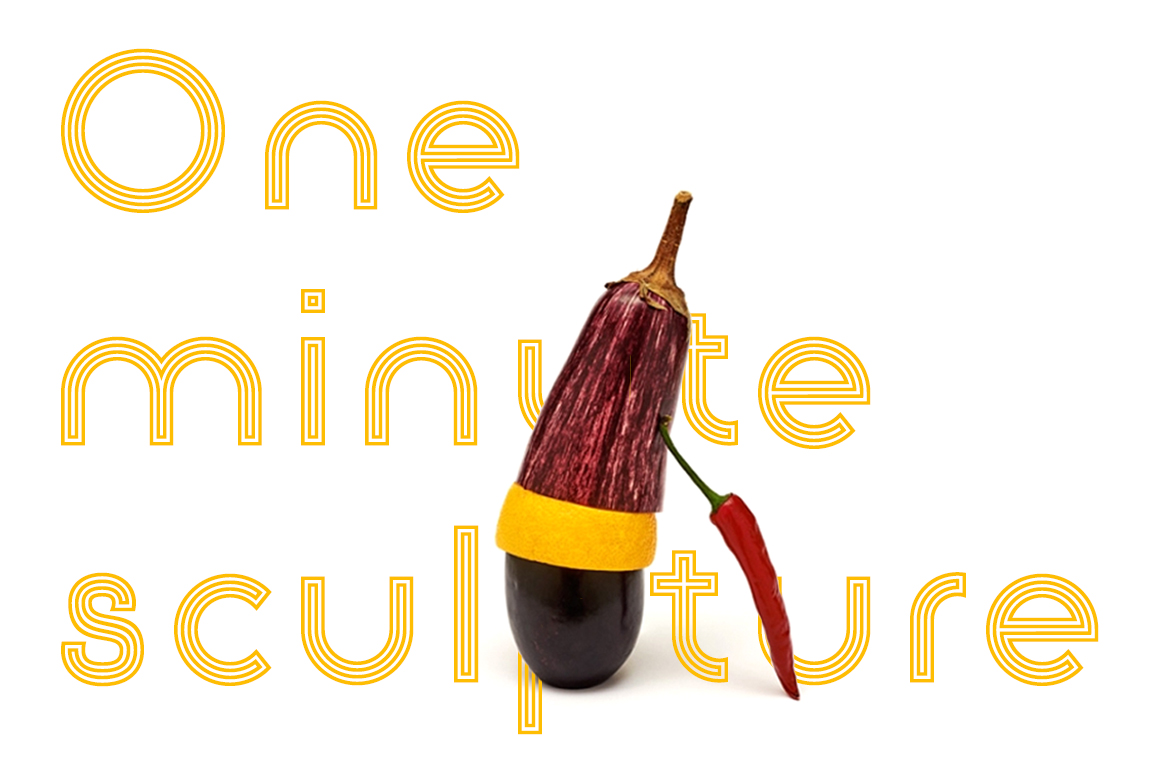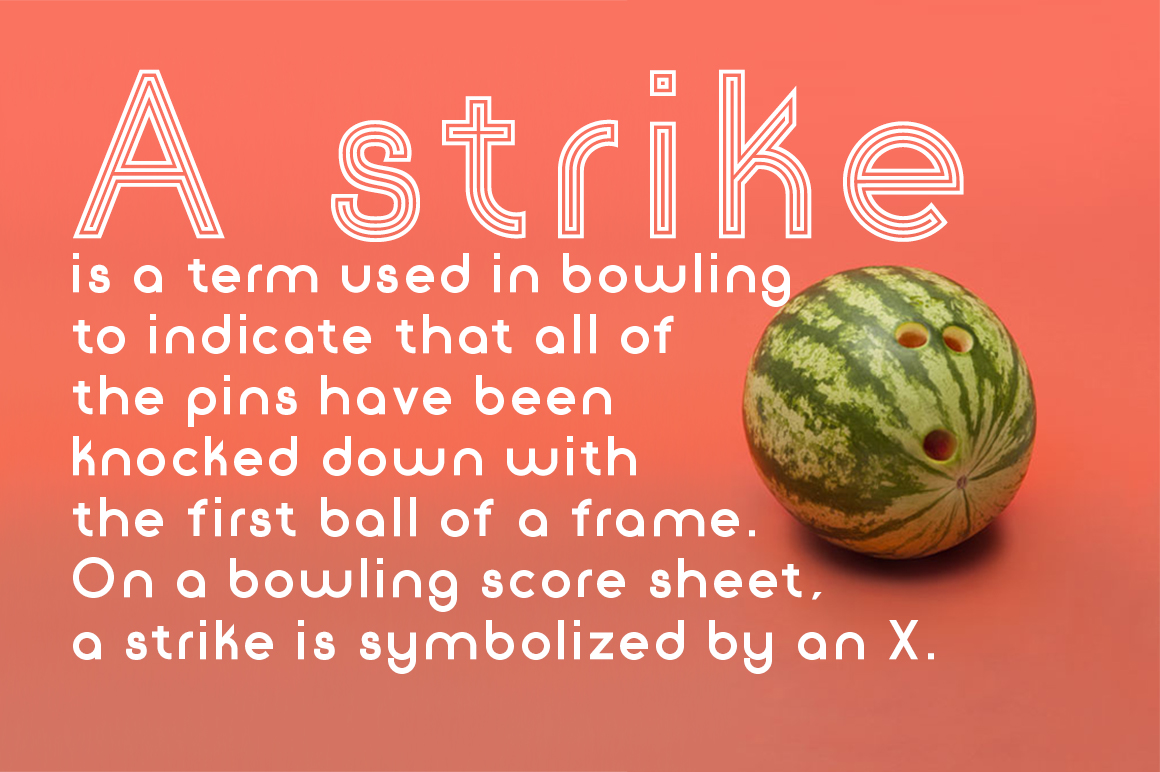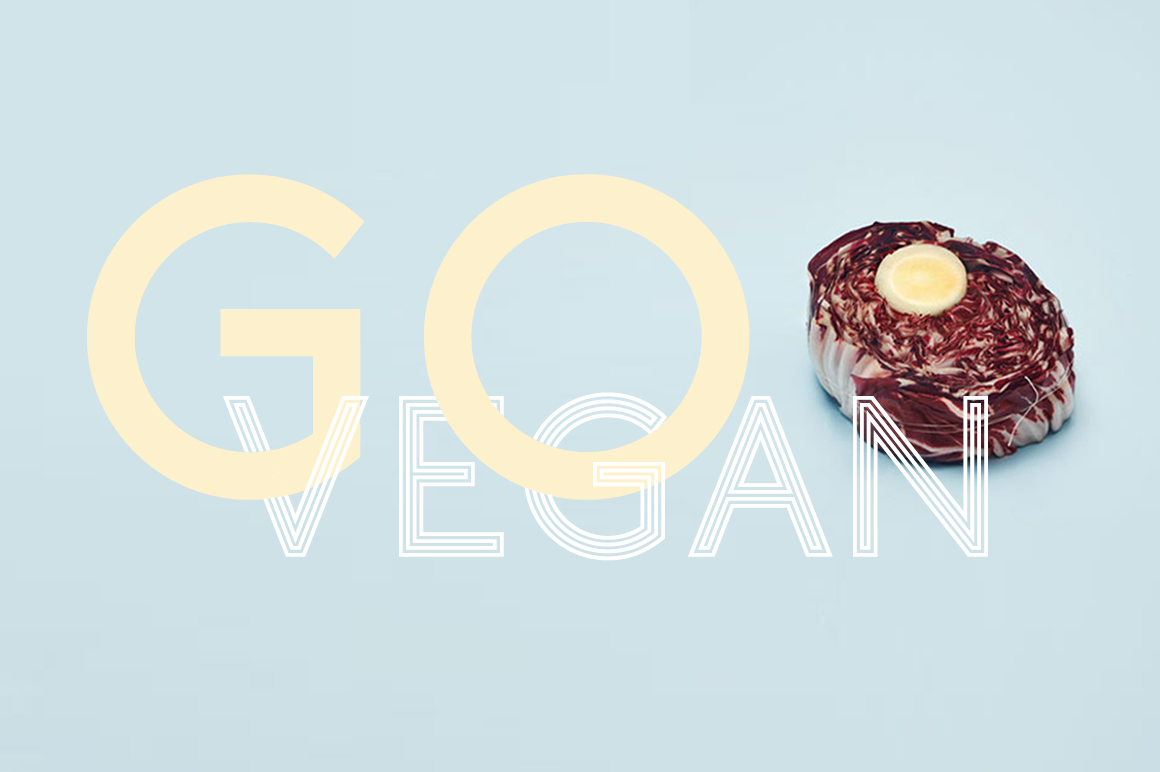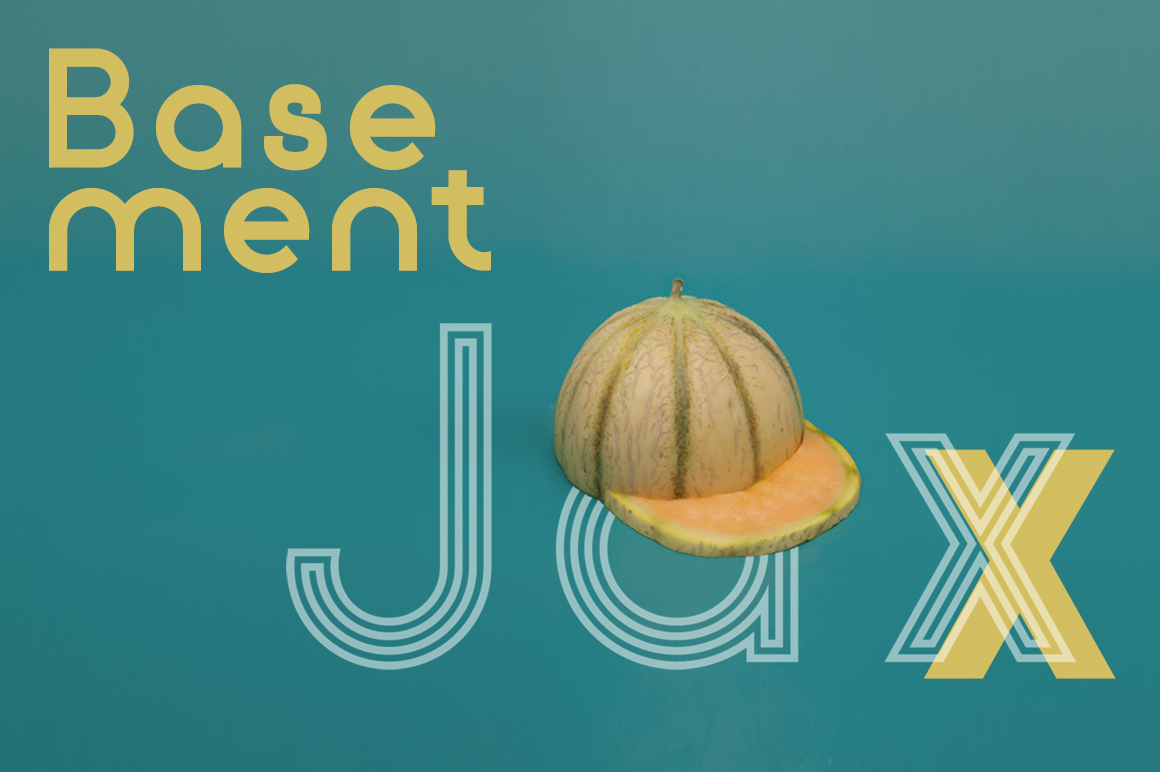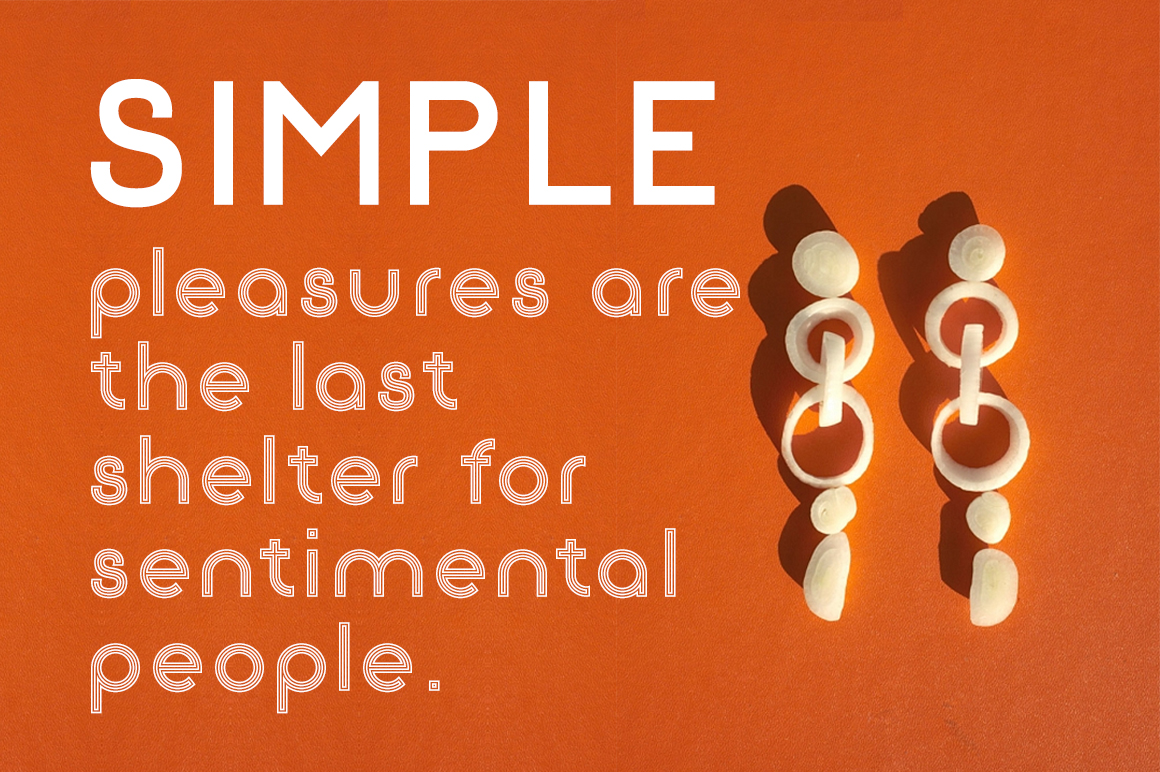
Introduction to Click Black & Stripes Font
Click Black & Stripes are a set of 2 display fonts based on the Click Sans Serif.
Key Features of Click Black & Stripes Font